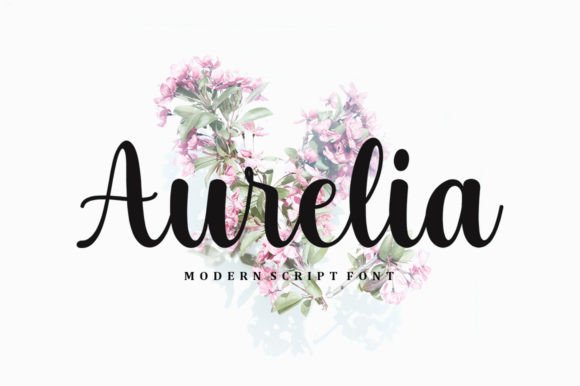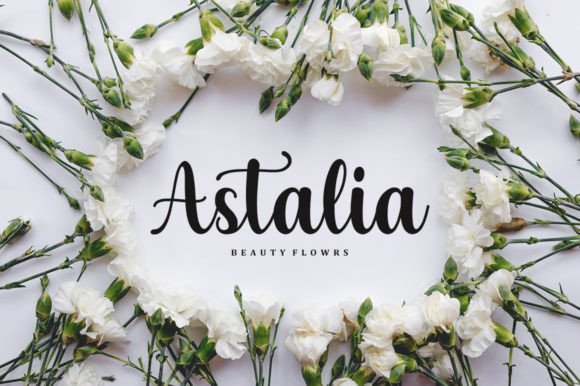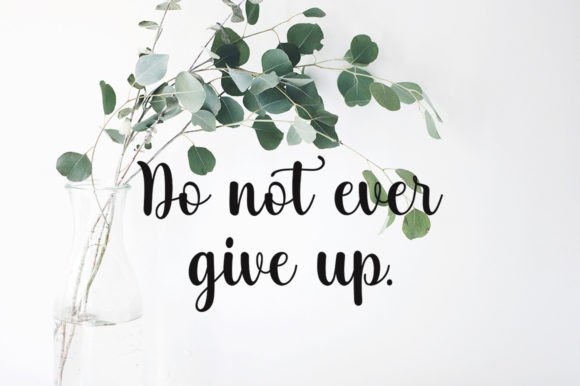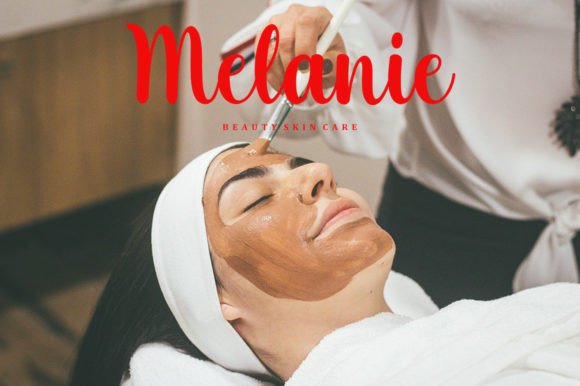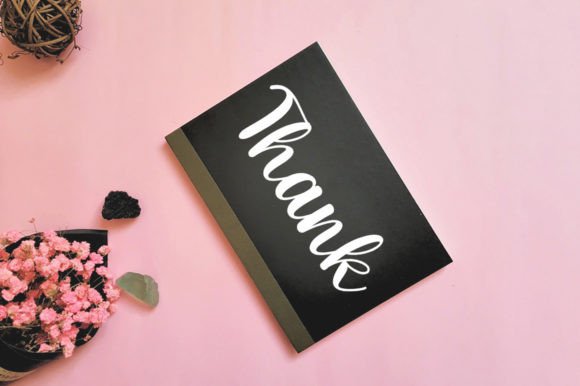
Aurelia Font
About Aurelia Font
**Aurelia: A Simple and Lovely Handwritten Font**
**Aurelia** is a simple and lovely handwritten font that brings a touch of natural simplicity to your design projects. This versatile font has a wide range of applications, making it suitable for greeting cards, headlines, and much more. It guarantees to infuse a simple and natural feel into your next creative endeavor.
**Aurelia** stands out with its straightforward and charming handwritten letterforms. Each character exudes a sense of simplicity and authenticity, making it an ideal choice for projects that require a natural and down-to-earth look.
This font’s versatility shines through, allowing it to adapt to a wide variety of applications. Whether you’re working on greeting cards, headlines, posters, or any other creative project, **Aurelia** adds a simple and genuine touch to your work.
For greeting cards, this font brings a warm and inviting feel, making your messages more relatable and heartfelt.
In headlines, **Aurelia** ensures that your content stands out with a natural and approachable appearance, leaving a memorable impression on your audience.
In conclusion, **Aurelia** is more than just a font; it’s a design asset that brings simplicity and authenticity to your creative projects. Whether you’re designing for print or digital platforms, choose **Aurelia** to infuse your work with its genuine and down-to-earth charm. Embrace its natural simplicity, and let your creativity flourish with a touch of handmade style.